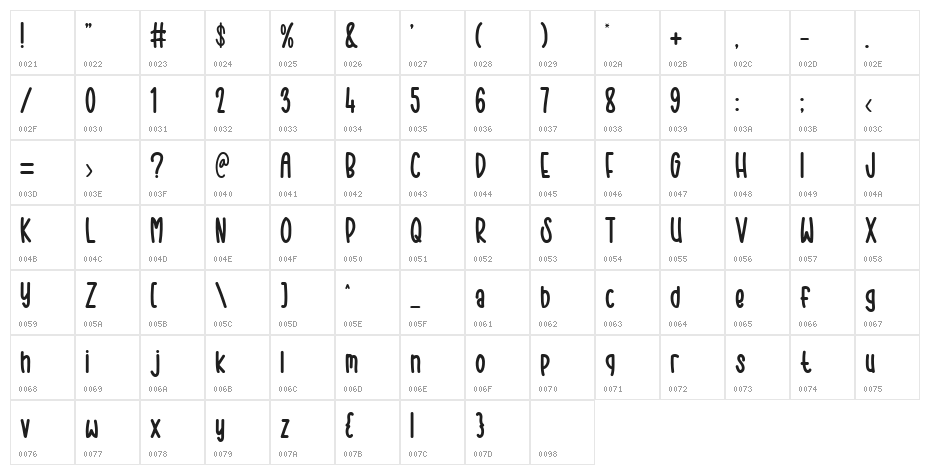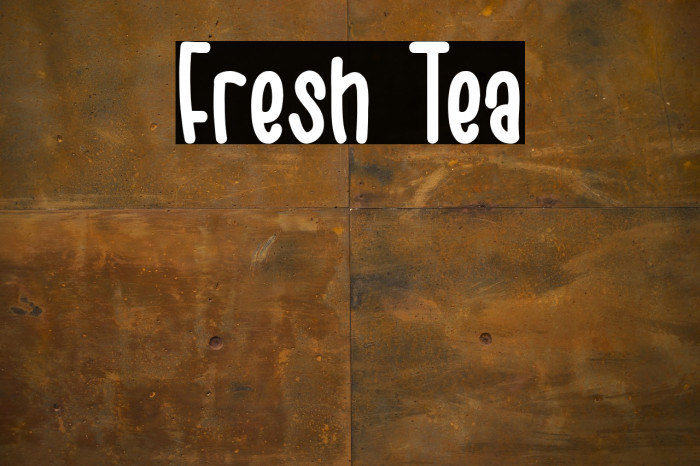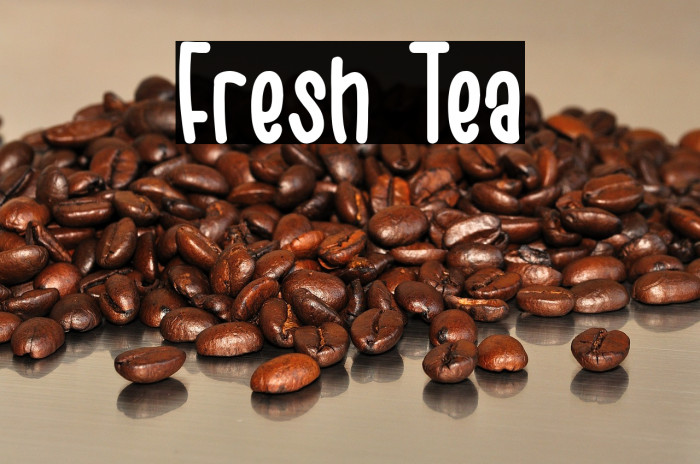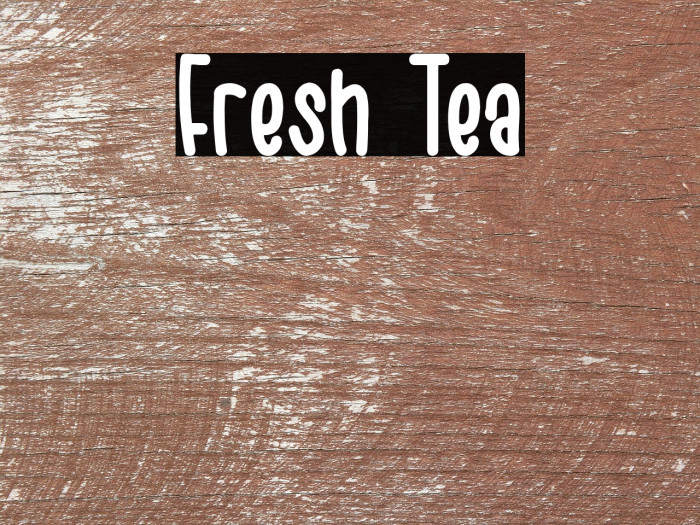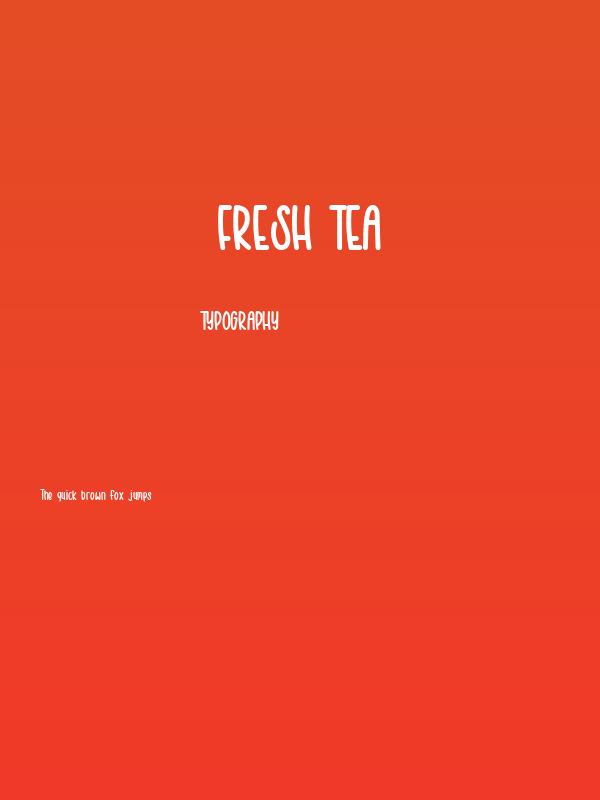
Fresh Tea Font
Fresh Tea Description
This playful and energetic font features bold, rounded characters with a hand-drawn feel. The letters have a consistent thickness, giving them a uniform appearance while maintaining a casual and friendly vibe. The uppercase and lowercase letters are well-proportioned, and the numbers are clear and easy to read. Special characters are included, adding versatility for various design needs. The overall style is approachable and fun, making it suitable for projects that require a touch of personality and warmth.
| Overall Style | Casual, Fun |
| Proposed Projects | Ideal for children's books, playful branding, casual invitations, and social media graphics. |